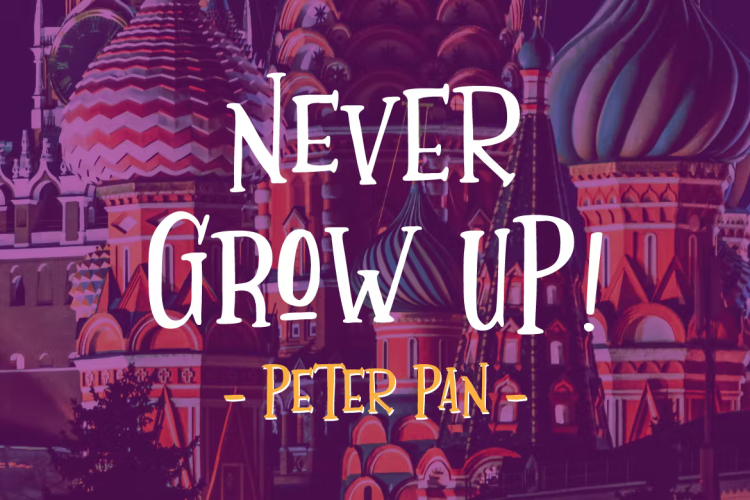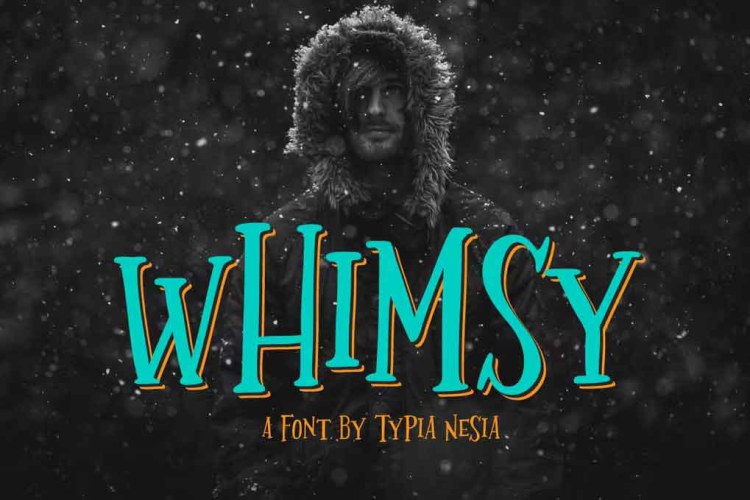
Whimsy Font
Whimsy is a handmade fantasy / whimsical display font. It suitable for titling, display, brand, crafting, quote, t-shirt, poster, packaging, book, cover, cards, invitation and more.
Where Whimsy Font works best
Reports, white papers and book interiors hold the eye longer when the text face has real serifs; Whimsy Font keeps that rhythm without looking old-fashioned.
Food, spirits and cosmetics brands lean on serif wordmarks to suggest age and care. Whimsy Font gives that signal at wordmark size.
Set Whimsy Font for the body of an award or a diploma and keep the recipient name in a script; the pairing is what makes a document feel official.
What kind of work does Whimsy Font suit?
It sits in the Serif Fonts group and reads as branding, display, handwritten, packaging. That makes it a candidate wherever those qualities help: headings, packaging, social graphics and brand work. Set it at the size you plan to use before deciding.